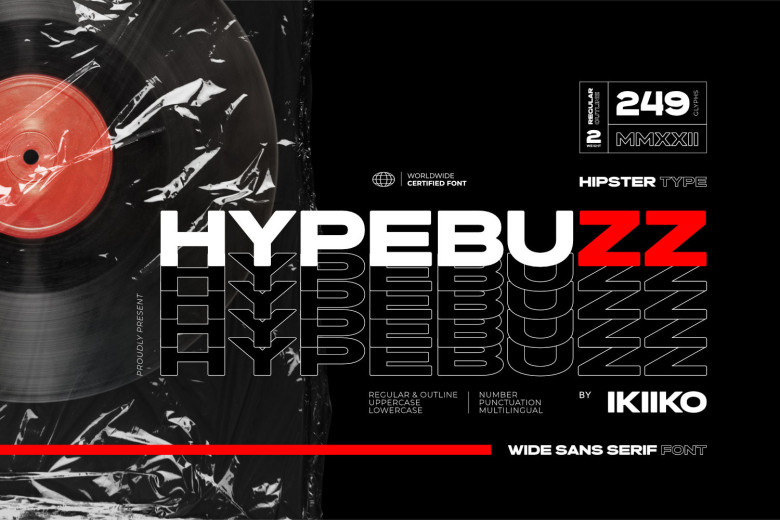
Hypebuzz Font
Hypebuzz Hipster Type was designed by ikiiko. Hypebuzz is an urban sans serif typeface with an unmistakably broad form. Reminiscent of streetwear hip-hop youth culture, urban youth subculture and more.
Hypebuzz features two kinds of letters for unique experimentation with text. Ideal for posters magazine layout branding logo sleeve cover party flyer quotes or simply overlaid onto any background image as background text overlay.
Hypebuzz Sans Serif Font